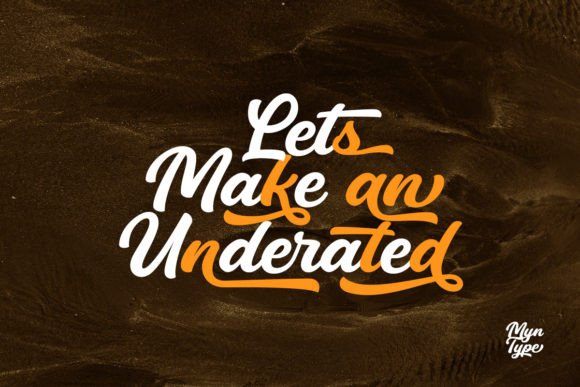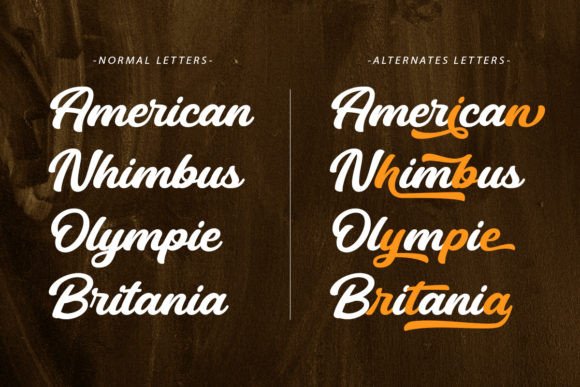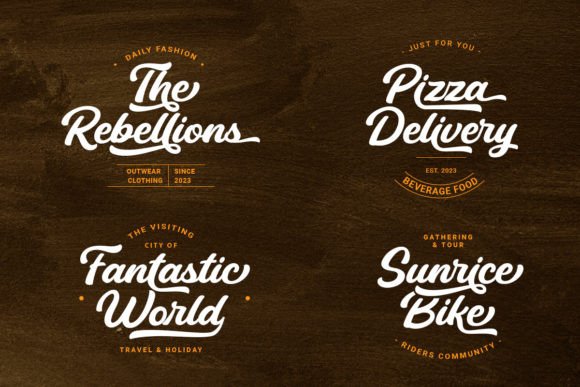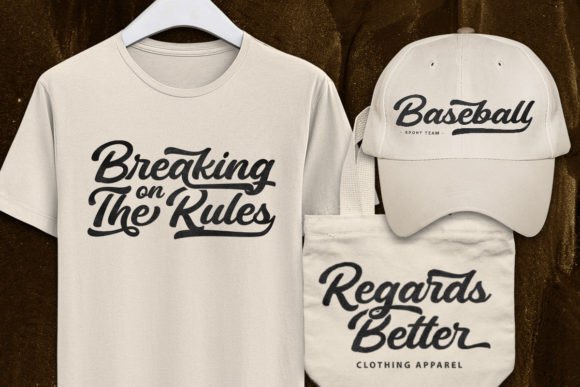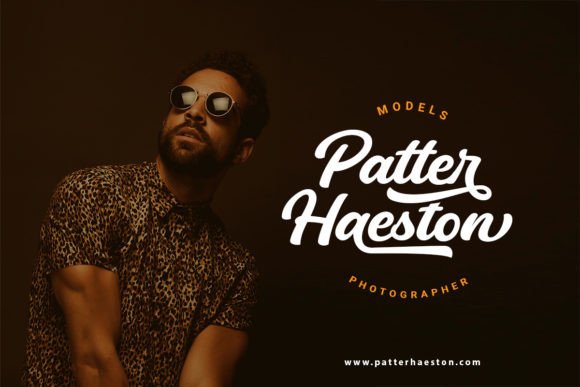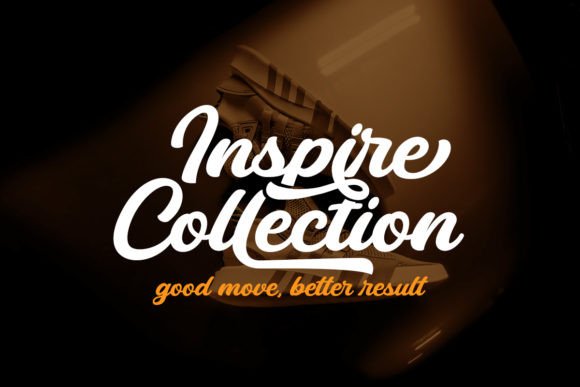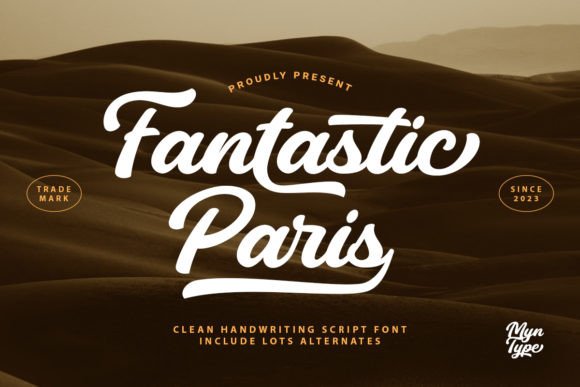
Fantastic Paris Font: Elevate Your Designs with Elegance and Modernity
In the realm of typography, few fonts manage to strike a balance between casual elegance and modern style as effortlessly as Fantastic Paris. This handwriting font is a masterpiece of design, offering the perfect blend of sophistication and approachability. Whether you’re a designer looking to elevate your branding, a crafter seeking the ideal font for your DIY projects, or simply someone who appreciates beautiful typography, Fantastic Paris is an exceptional choice.
The Essence of Fantastic Paris
Fantastic Paris is more than just a font; it’s an experience. It brings to the table a unique combination of elegance and casualness, making it incredibly versatile for various design needs. From wedding invitations and branding materials to blog posts and social media graphics, Fantastic Paris adds a touch of class and modernity that is hard to achieve with more traditional typefaces.
Key Features of Fantastic Paris Font
- Handwriting Style: Fantastic Paris boasts a beautiful, fluid handwriting style that gives any text a personal and approachable feel.
- Elegance and Sophistication: Despite its casual nature, the font exudes elegance, making it suitable for more formal projects such as event invitations or luxury brand logos.
- Modern Appeal: Its modern style ensures that your designs feel current and fresh, appealing to audiences of all ages.
- Versatility: Fantastic Paris can be used across a wide range of design projects, from digital content to print materials.
Why Choose Fantastic Paris?
Choosing a font for your design project can be overwhelming, given the vast number of options available. However, Fantastic Paris stands out for several reasons:
- Unique Identity: It offers a unique style that can help your brand or project stand out from the crowd.
- Emotional Connection: The font’s handwriting style creates a warm and inviting feel, helping to establish an emotional connection with your audience.
- Easy to Read: Despite its elegant and modern appeal, Fantastic Paris remains highly legible, ensuring your message is communicated clearly.
Using Fantastic Paris in Your Designs
Incorporating Fantastic Paris into your projects is straightforward. Here are a few tips to get you started:
- Pairing: For maximum impact, pair Fantastic Paris with complementary fonts that enhance its elegance and modernity.
- Color Choice: While the font itself is versatile, choosing the right color can further elevate your design. Consider colors that match your brand’s palette or the mood you’re trying to convey.
- Size and Spacing: Experiment with different sizes and spacing to ensure your text is readable and visually appealing.
Who Can Benefit from Fantastic Paris?
Fantastic Paris is a valuable asset for a wide range of professionals and creatives, including:
- Graphic Designers: Looking for a sophisticated yet approachable font for client projects.
- Branding Experts: Seeking a typeface that can help establish a unique brand identity.
- Crafters and Makers: Creating handmade or digital products that require a personal touch.
- Bloggers and Social Media Influencers: Aiming to enhance the visual appeal of their content.
Fantastic Paris is a remarkable handwriting font that brings together the best of casual elegance and modern style. Its versatility, unique charm, and emotional resonance make it an excellent choice for anyone looking to add a touch of sophistication and approachability to their designs. Whether you’re working on a professional project or a personal craft, Fantastic Paris is sure to exceed your expectations and leave a lasting impression on your audience.